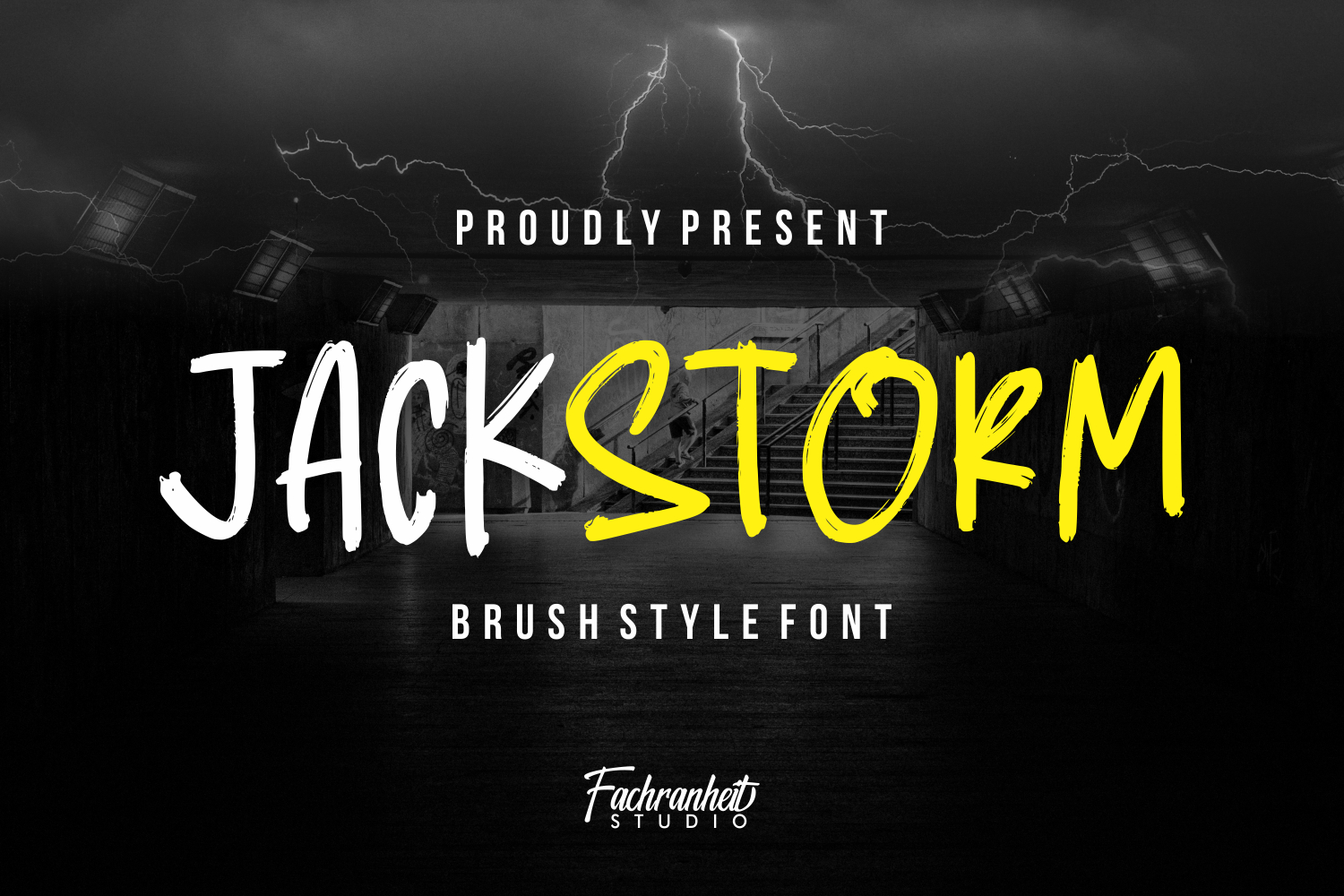
Jackstorm
Jackstorm is a brush style font. It can easily be matched to an incredibly large set of projects and use it for movie posters, flyers, headline, logo, logotype, packaging and much more!, so add it to your creative ideas and notice how it makes them stand out!
Here come with 2 style : Regular & Italic
• Jackstorm
• Jackstorm Italic
• Basic Latin A-Z and a-z
• Alternate
• Symbols
• Multilanguage Support